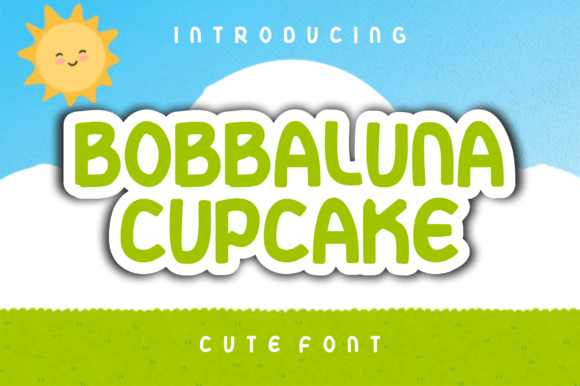
The Sweetest Font You’ll Ever Meet: Bobbaluna Cupcake
Have you ever been in the middle of a design project, and suddenly, you’re stuck on finding the perfect font? I recall a recent experience where I was working on a children’s book, and my client asked for a font that was “fun, playful, and whimsical.” I scoured the internet, tried out countless fonts, but none seemed to capture the essence of childhood magic. That’s when I stumbled upon the **Bobbaluna Cupcake** font. It’s been a game-changer ever since!
A Font that Captures Childhood Magic
**Bobbaluna Cupcake** is a cheerful and adorable display font designed to bring joy, creativity, and imagination to every project. Featuring rounded shapes, playful curves, and a friendly personality, this font captures the magic of childhood in every letter. Its soft and bubbly appearance makes it perfect for children’s books, educational materials, toy packaging, birthday invitations, nursery decorations, cartoons, branding, and any design that needs a touch of sweetness and fun.
Here’s my honest review of the **Bobbaluna Cupcake** font:
- ✨ I love how versatile it is – perfect for both digital and print projects.
- ✅ The font is highly legible, even at smaller sizes.
- 😍 The playful curves and rounded shapes add a touch of whimsy to any design.
- 👍 It’s incredibly easy to pair with other fonts, thanks to its unique personality.
As for quirks or limitations:
- 🤔 The font might not be the best choice for very formal or professional projects, as it’s quite playful.
- ⚠️ Some of the letters, like the lowercase “g” and “y,” have a slightly condensed design, which might affect readability in certain contexts.
The **Bobbaluna Cupcake** font was designed with one goal in mind: to capture the magic of childhood. The designer, inspired by the whimsical world of children’s books and cartoons, created a font that’s both playful and adorable. With its rounded shapes and friendly personality, **Bobbaluna Cupcake** is sure to bring a smile to anyone’s face.
| What is the **Bobbaluna Cupcake** font best used for? | The **Bobbaluna Cupcake** font is perfect for children’s books, educational materials, toy packaging, birthday invitations, nursery decorations, cartoons, branding, and any design that needs a touch of sweetness and fun. |
| Is **Bobbaluna Cupcake** a versatile font? | Absolutely! **Bobbaluna Cupcake** is a highly versatile font that can be used for both digital and print projects, and it’s suitable for a wide range of design applications. |